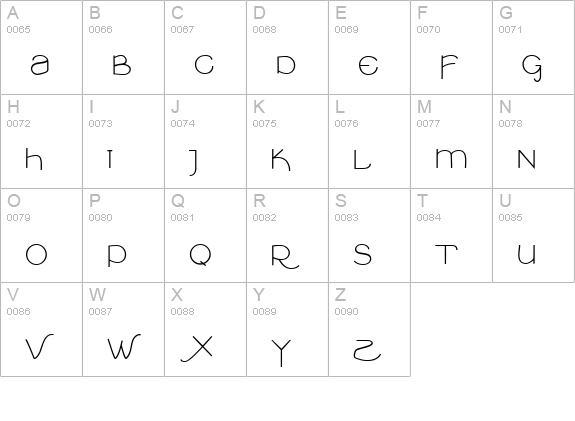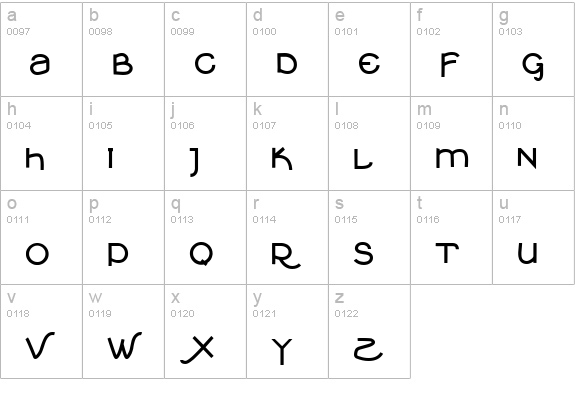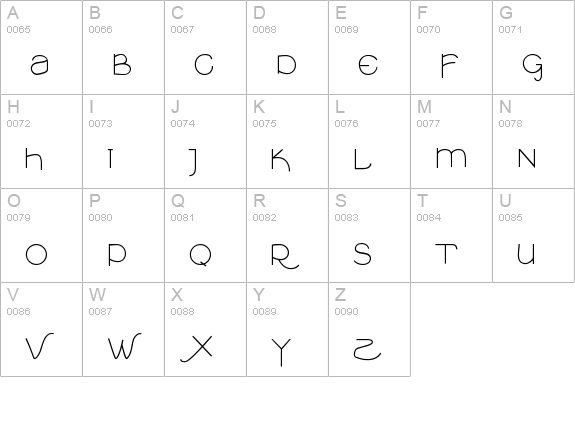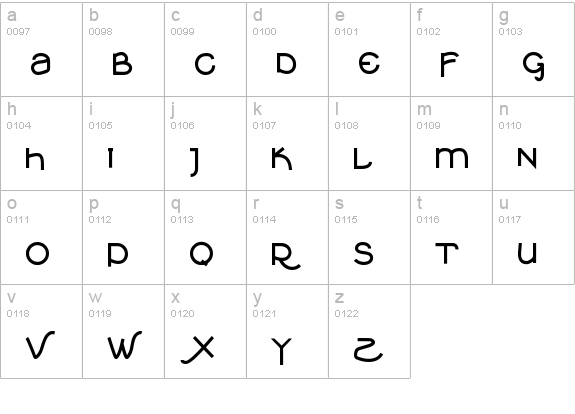
VTKS clean Font Details
VTKS Clean font is a sleek and modern typeface that exudes simplicity and elegance. With its clean lines and minimalist design, this font is perfect for a wide range of design projects. Whether you're creating a professional presentation or designing a stylish logo, VTKS Clean font will elevate your work to the next level. Best of all, VTKS Clean font is completely free to download at FontsMarket.com. This means that you can access this high-quality font without any cost, making it a fantastic option for designers on a budget. Don't miss out on the opportunity to enhance your designs with the sophisticated charm of VTKS Clean font. Download it today and see the difference it can make in your projects!